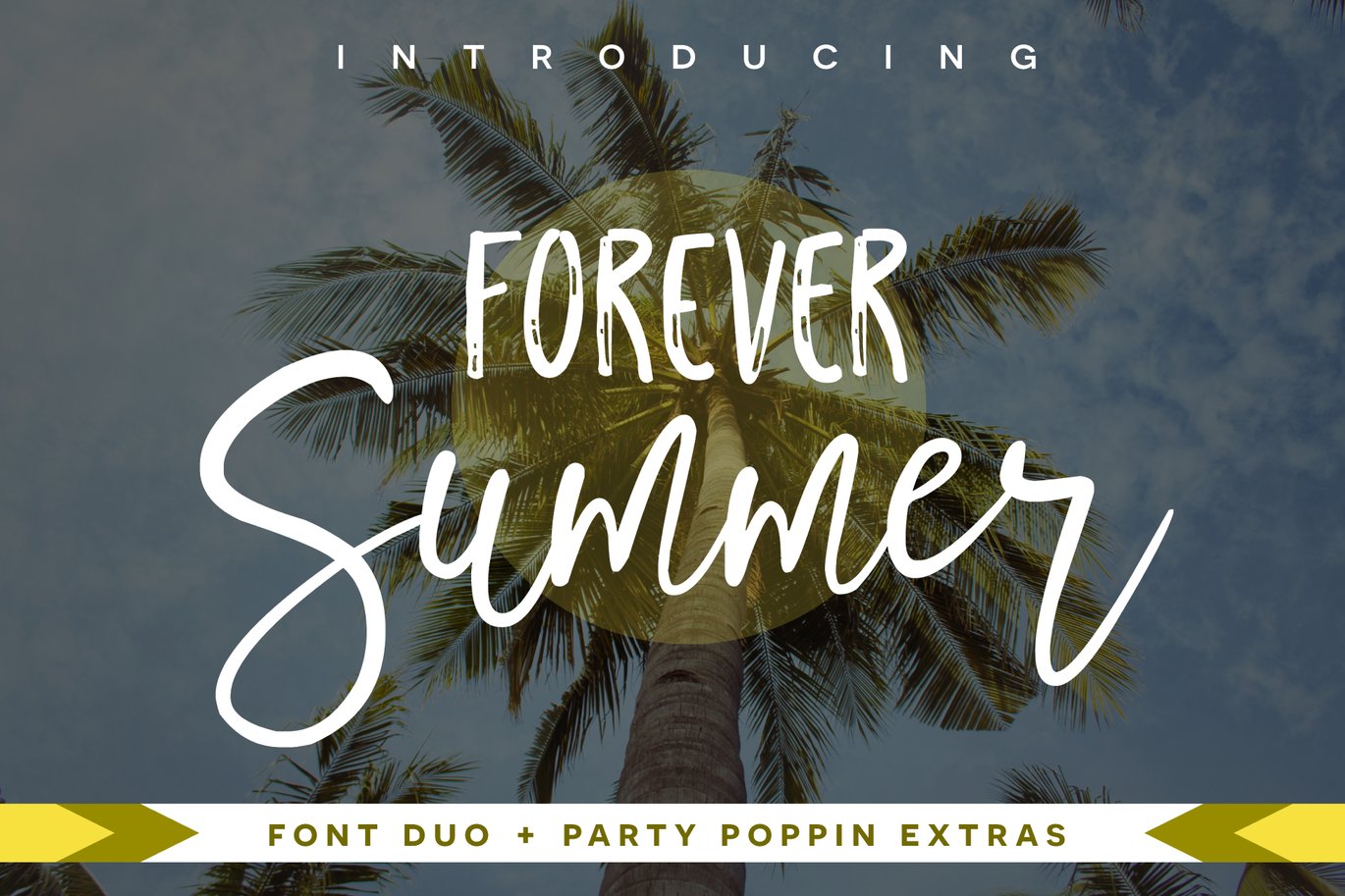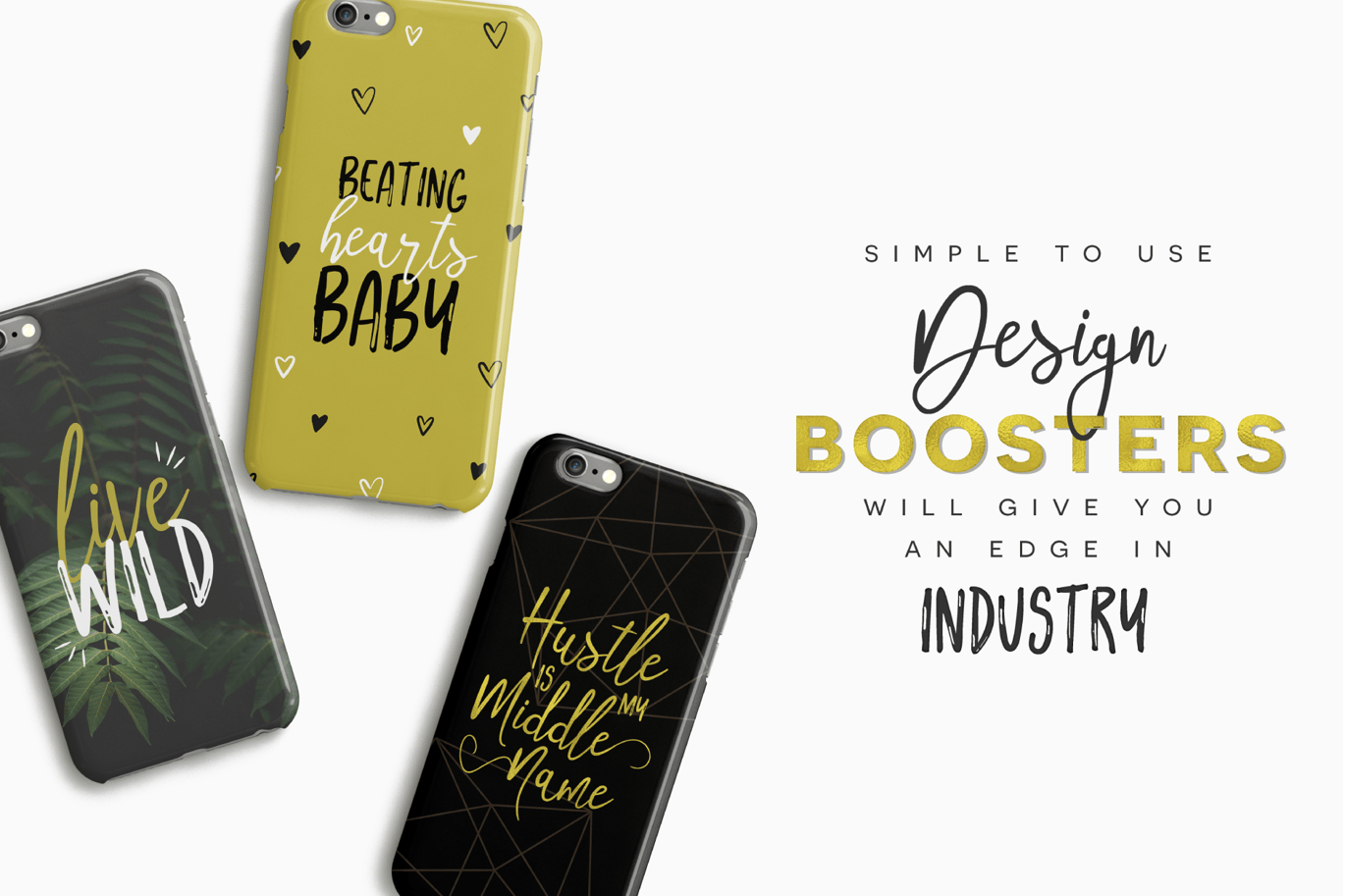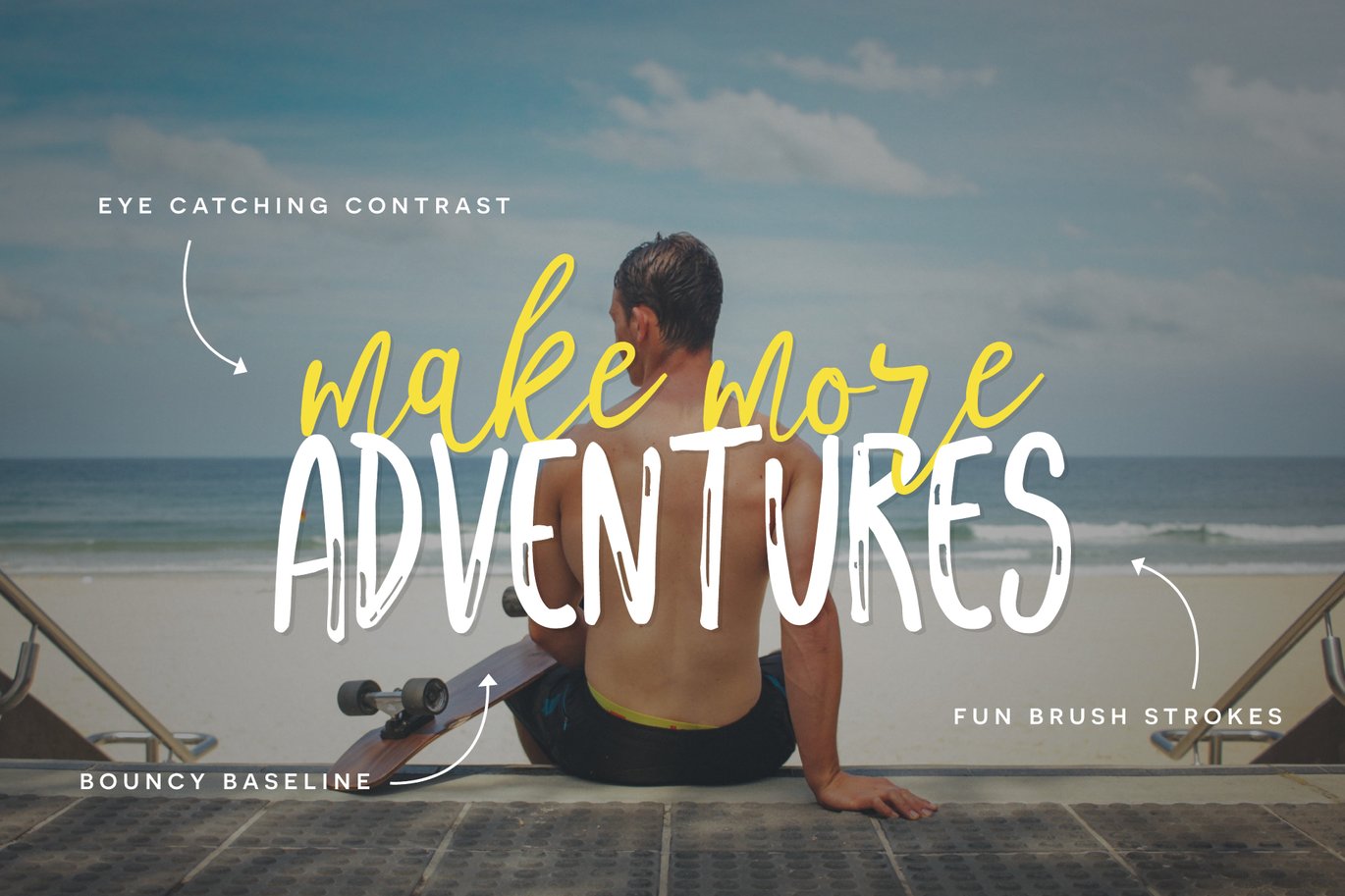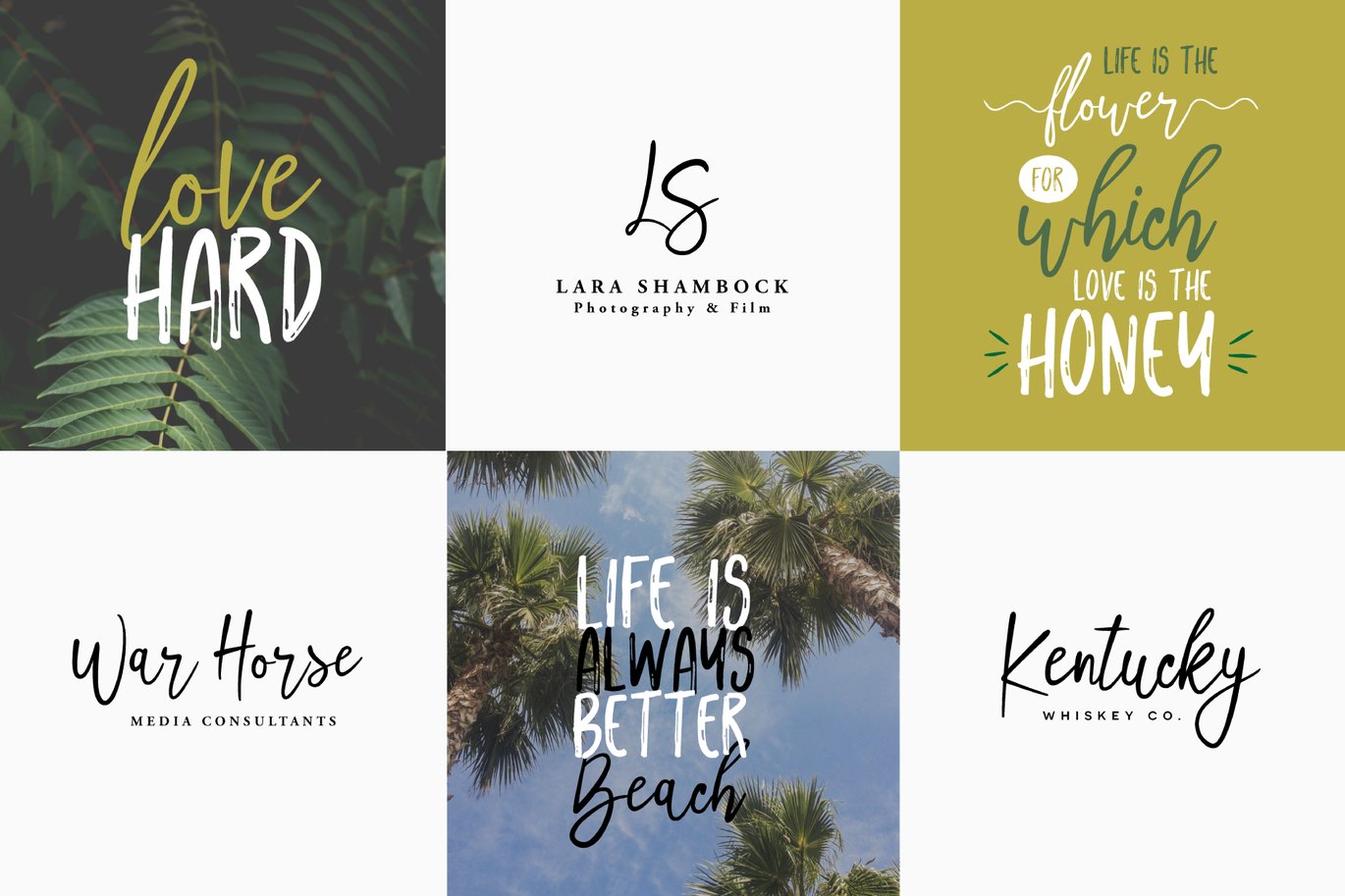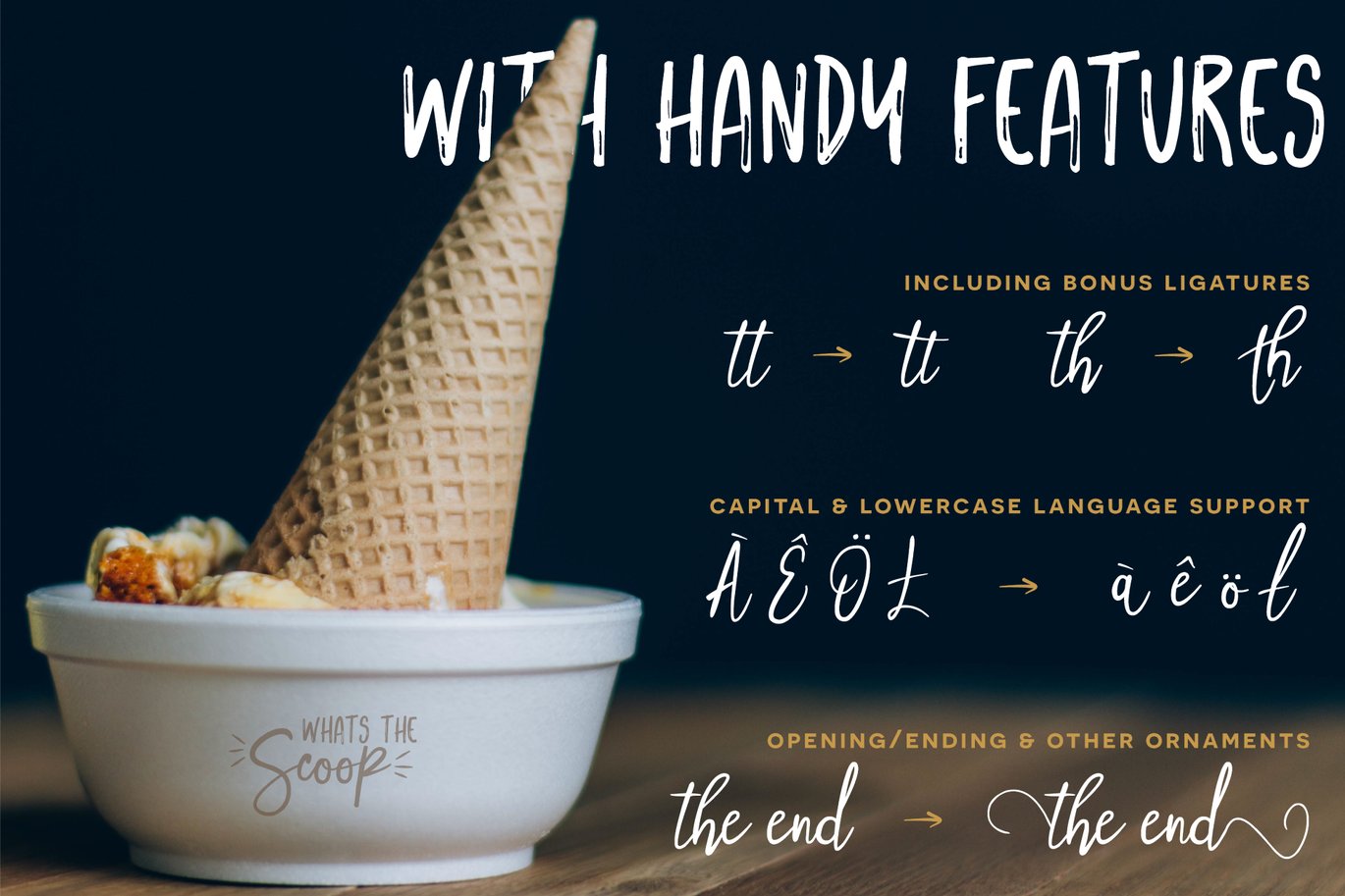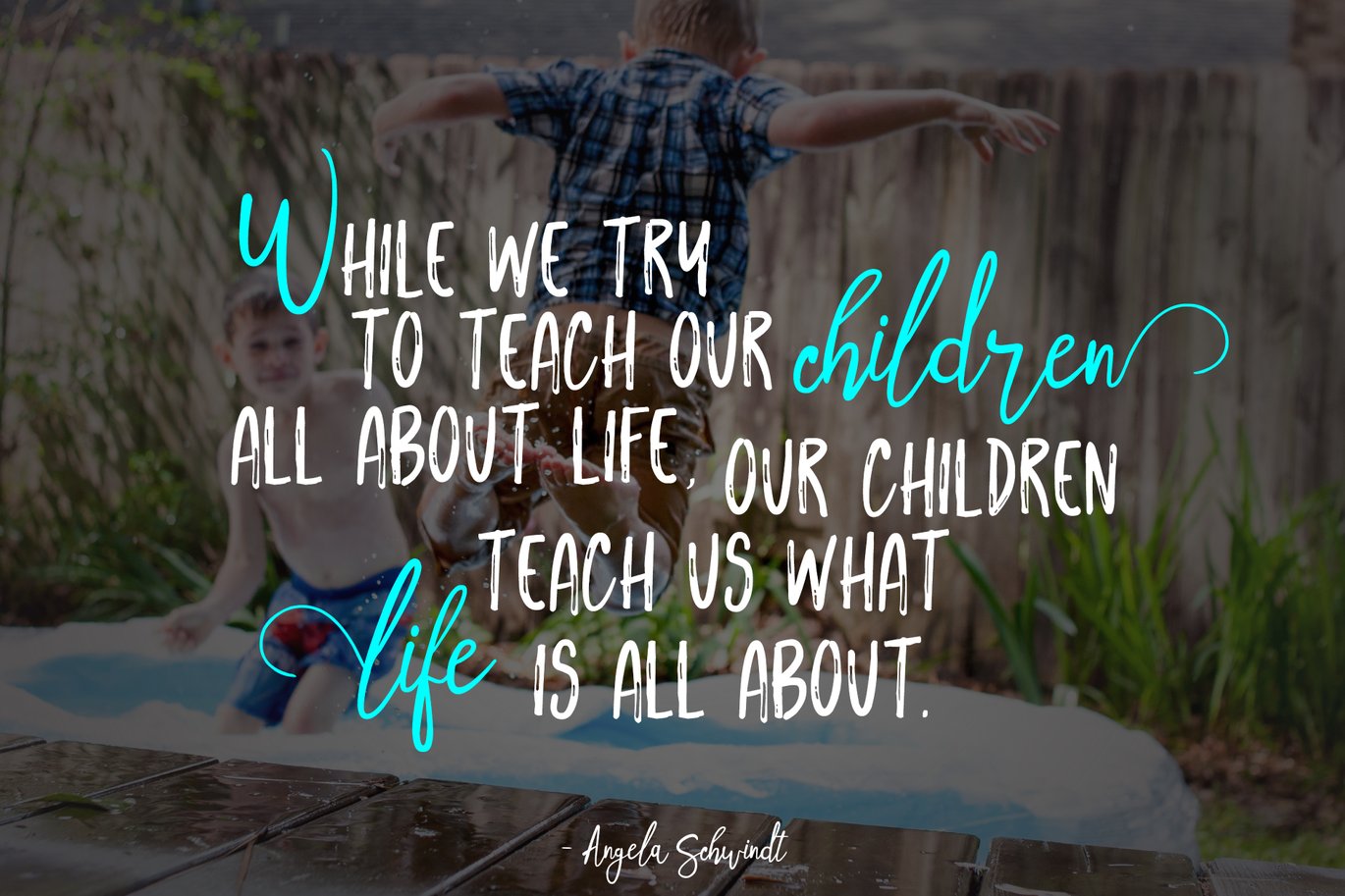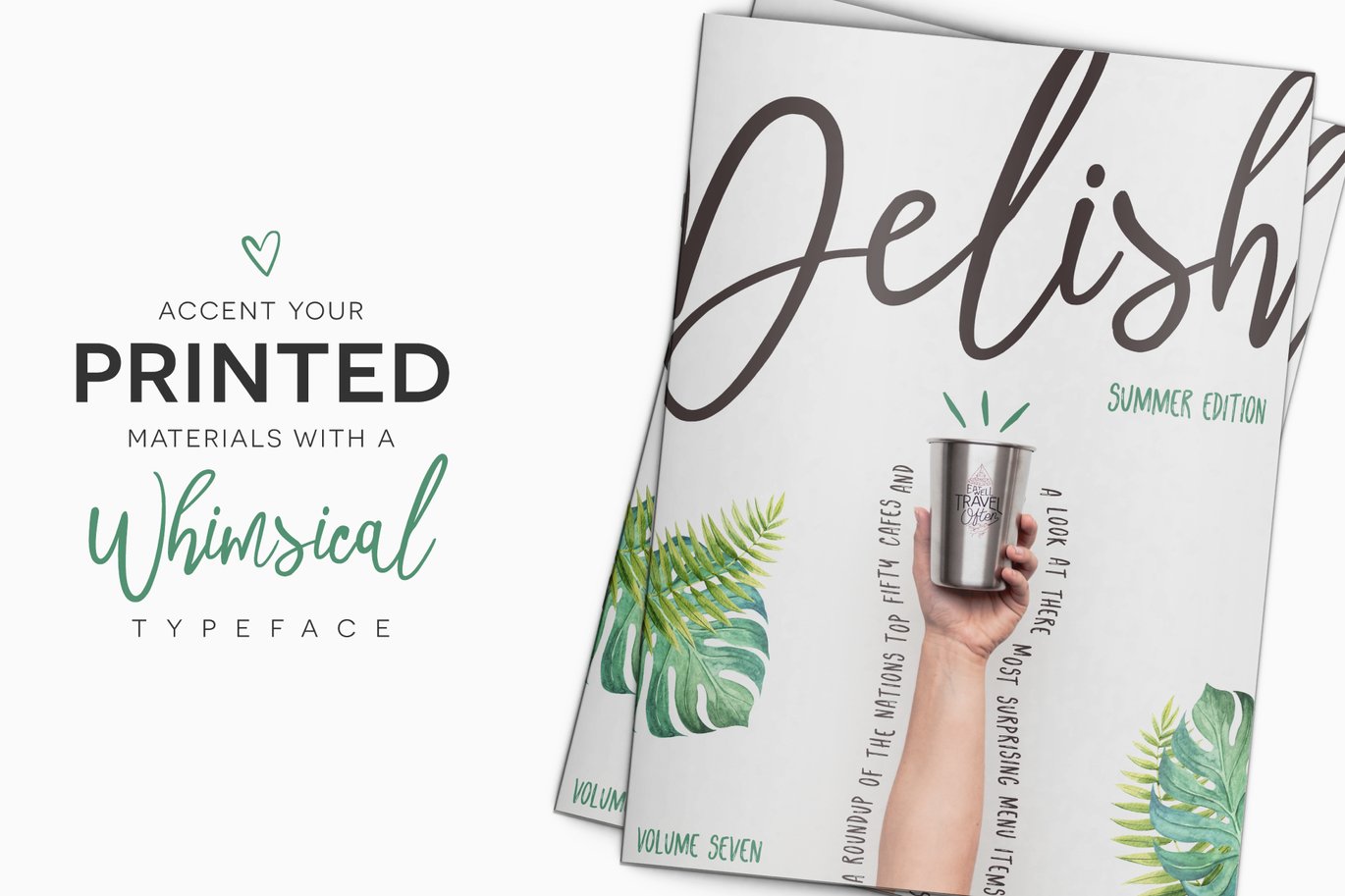
Forever Summer Font Duo
ABOUT FOREVER SUMMER FONT DUO :
Forever Summer is a fun loving font duo that couples sexy script with playful sans serif! It’s marker brush strokes give it a gritty and eye popping aesthetic perfect for prints, greeting cards, typography quotes, branding, and more! Plus add the The Bonus Ornaments to your designs and quickly catch your customers eye!
Use it in ink, watercolor, or gold foil based designs or all on its own! Handcrafted fonts have become all the rage. Pick up this Font Duo package and get ready to take over the design world by storm!
Over 100 Bonus Glyphs including International Language Support (English, French, Spanish, German, Polish, Italian Portuguese), and some other fun ligatures